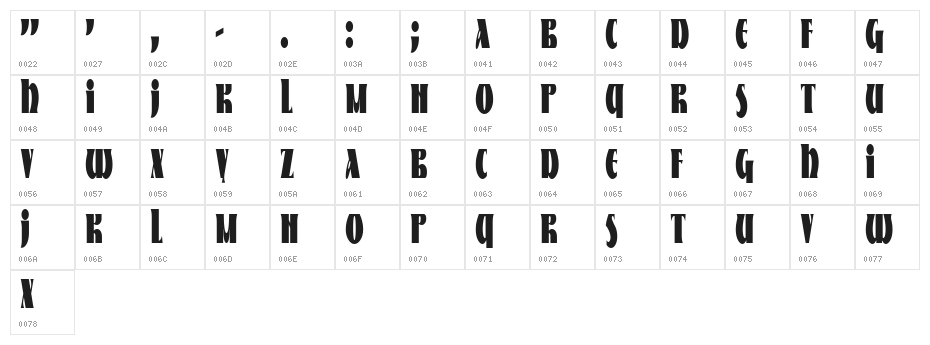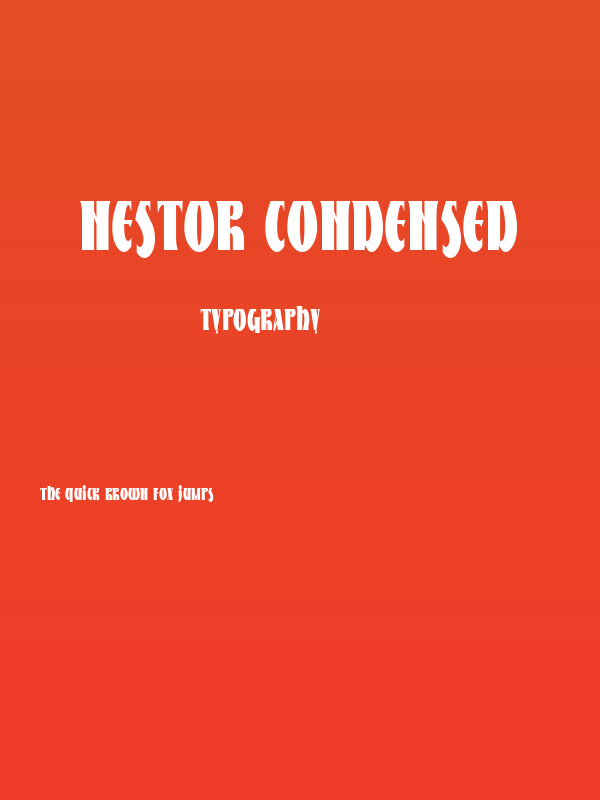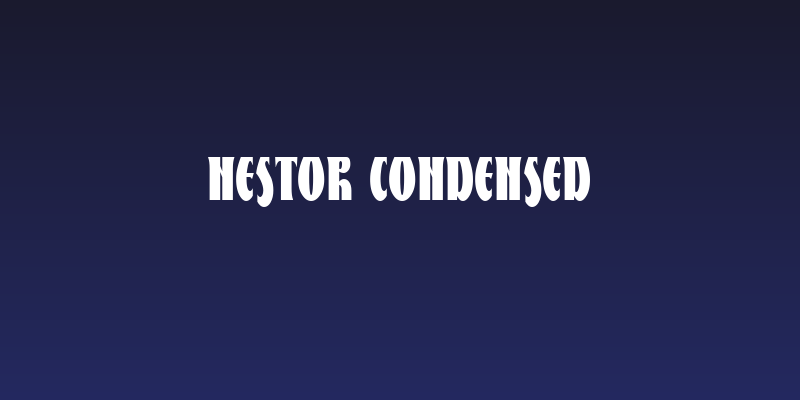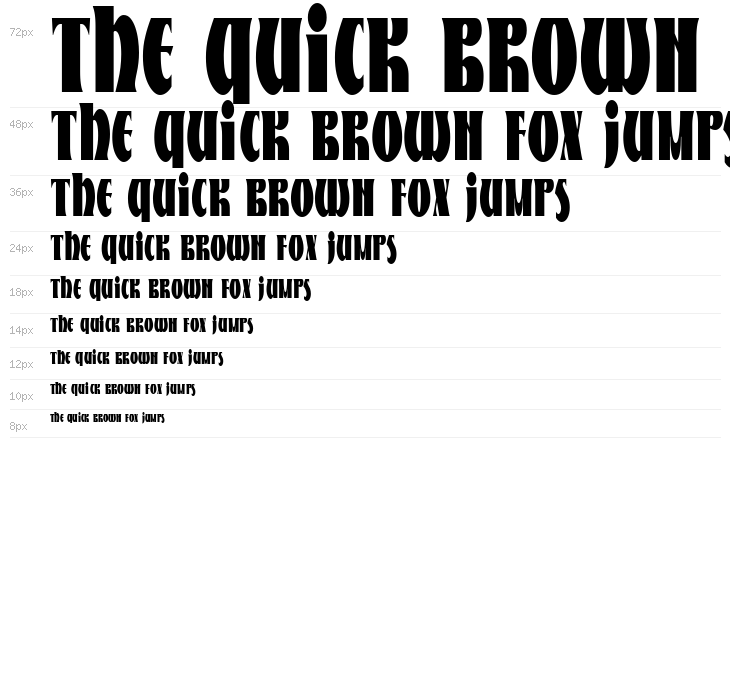
Nestor Condensed Font
Nestor Condensed Description
This font features a bold and condensed style with a strong presence. The uppercase letters are tall and narrow, creating a striking visual impact. The lowercase letters maintain the condensed form, offering a cohesive look throughout. The font's thick strokes and sharp angles give it a modern and assertive appearance. It includes a full set of uppercase and lowercase letters, numbers, and a selection of special characters. The design is highly legible, making it suitable for various display purposes.
Proposed ProjectsIdeal for posters, headlines, branding, and any project requiring a bold statement.